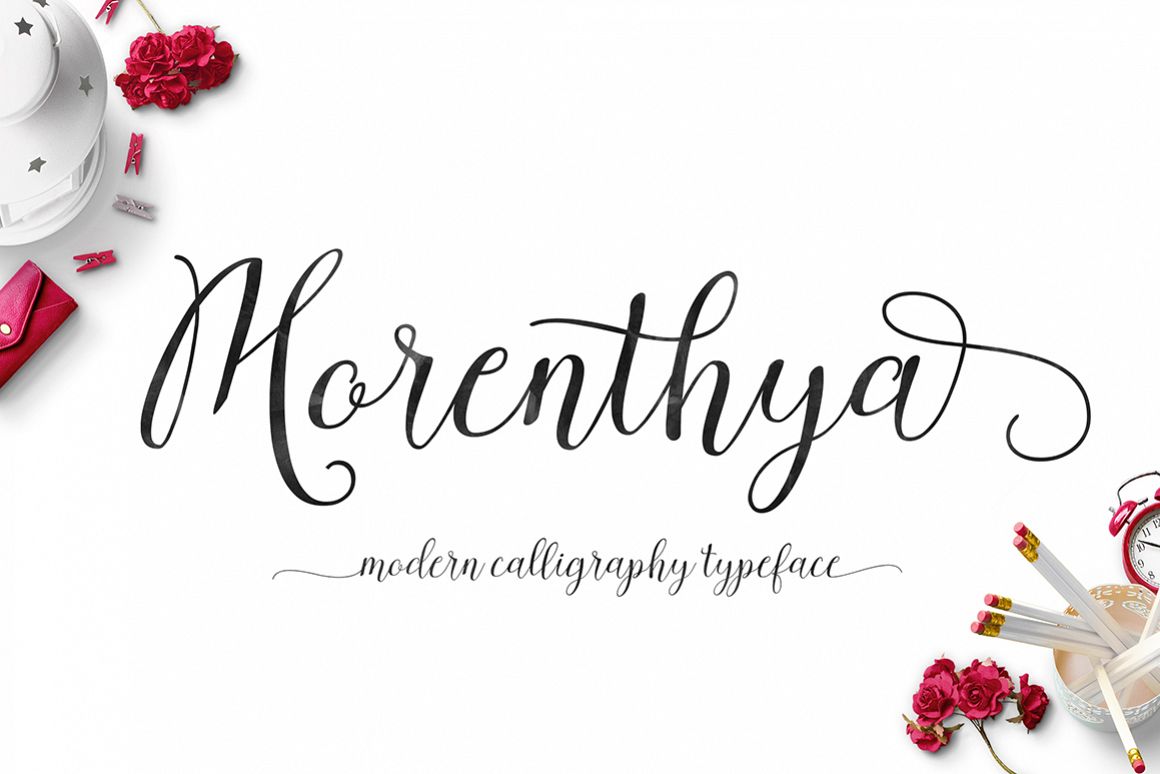
Morenthya Script
Morenthya Script.
Morenthya Script is a modern calligraphy font, with characters dance along the baseline and elegant touch. features 593+ glyphs and 387 alternate characters.Opentype features with stylistic alternates, ligatures and multiple language support. Can be used for various purposes.such as logos, wedding invitation, heading, t-shirt, letterhead, signage, label, news, posters, badges etc. To enable the OpenType Stylistic alternates, you need a program that supports OpenType features such as Adobe Illustrator CS, Adobe Indesign & CorelDraw X6-X7, Microsoft Word 2010 or later versions. How to access all alternative characters using Adobe Illustrator: https://www.youtube.com/watch?v=XzwjMkbB-wQ Morenthya Script is coded with PUA Unicode, which allows full access to all the extra characters without having special designing software. Mac users can use Font Book , and Windows users can use Character Map to view and copy any of the extra characters to paste into your favourite text editor/app. How to access all alternative characters, using Windows Character Map with Photoshop: https://www.youtube.com/watch?v=Go9vacoYmBw Thanks and happy designing :)